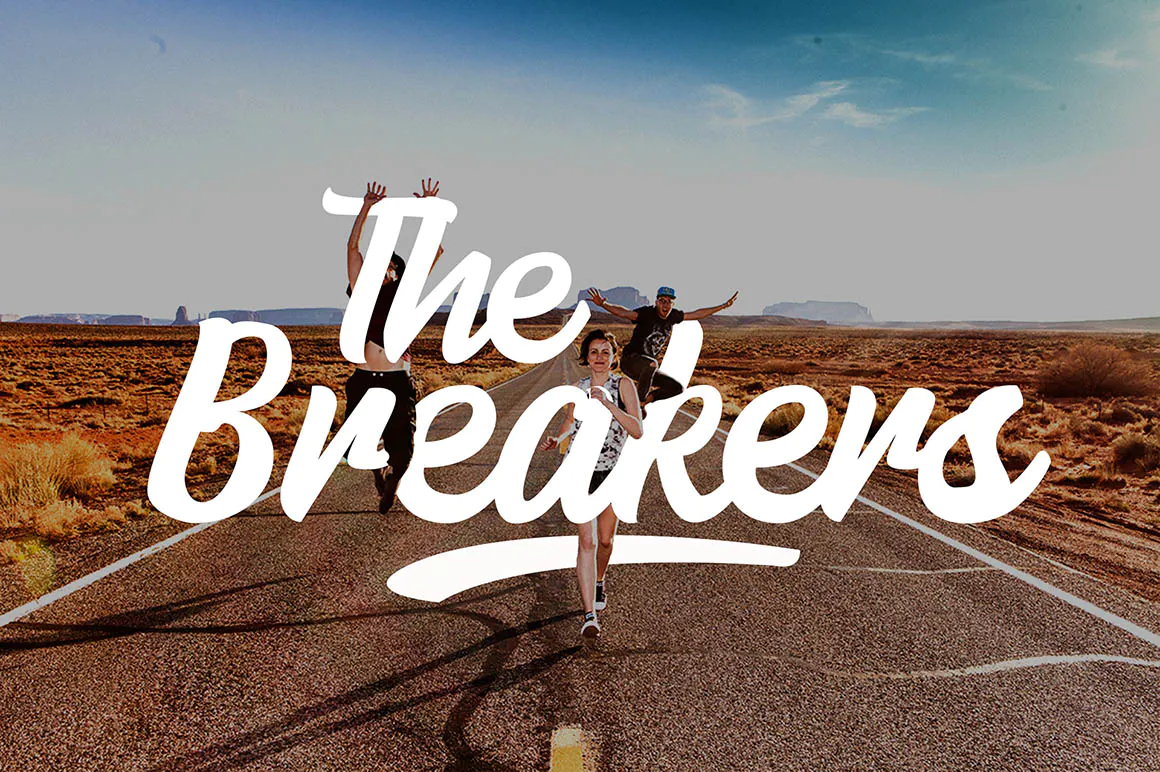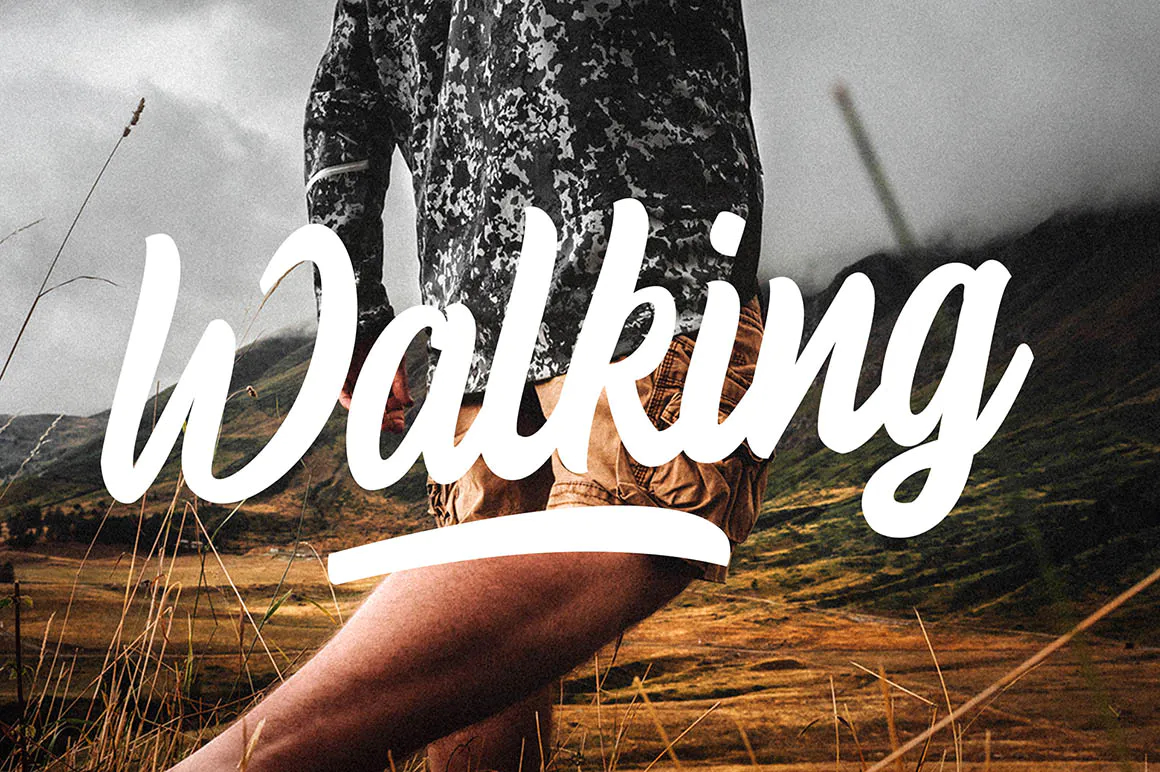
Malaga Modern Script Free Typeface
Introducing Malaga Modern Script Free Typeface by Maulana Arrhaman! Malaga is a hand-drawn, font It’s combined with its playful style creates a modern fun font that will work in different types of projects. This font is legible and comes with alternative options. In addition, the free font is 100% free so you can use it for a personal and commercial project.